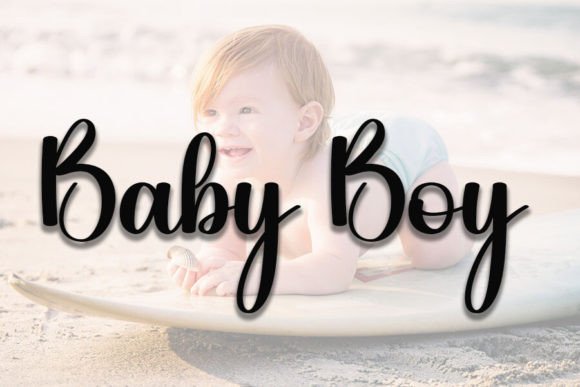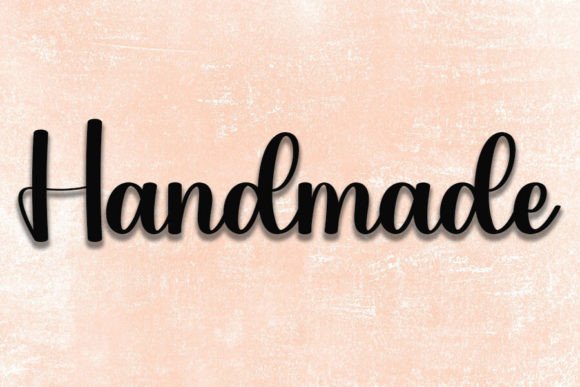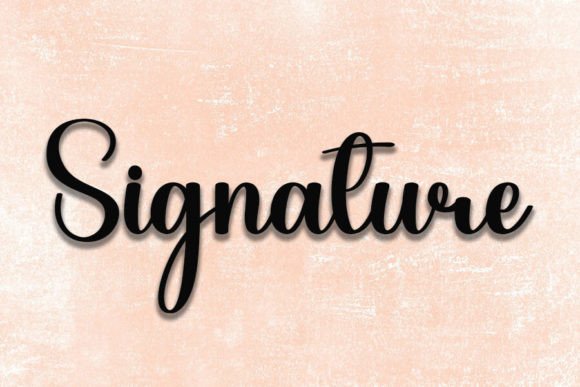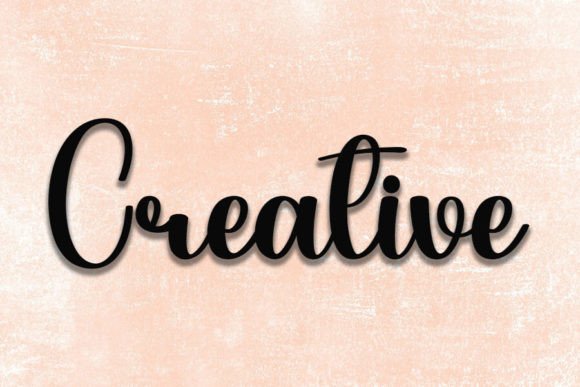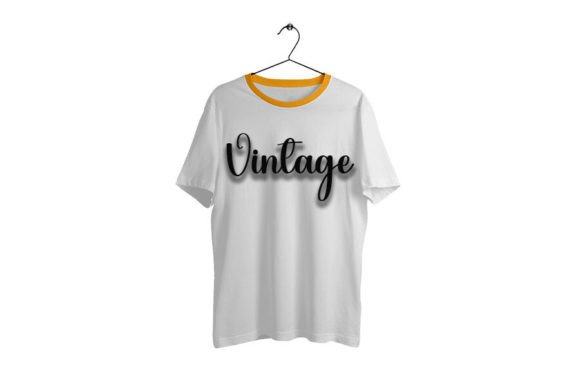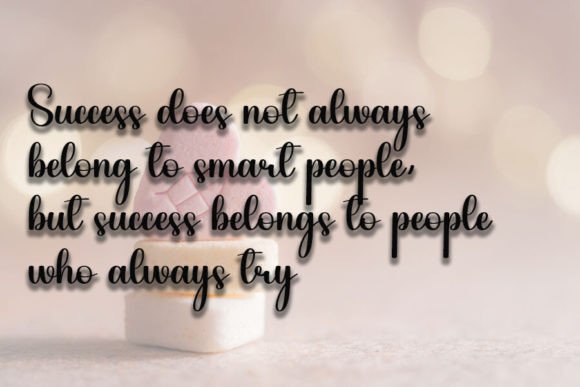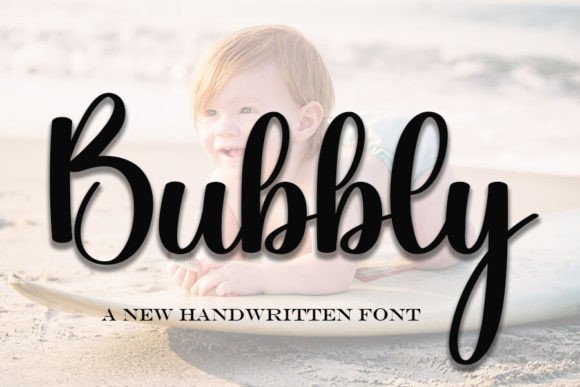
Have you ever sat at your desk, staring blankly at a blank page, waiting for inspiration to strike? It’s a moment we’ve all been in – the creative block that threatens to derail even the most promising project. But then, suddenly, it hits you: a spark of genius, a dash of whimsy, or a pinch of personality that brings your design to life. For many designers, this moment is made possible by the perfect font – one that adds a touch of elegance and charm to their work.
Enter the Bubbly Font, a beautiful handwritten font that captures the essence of timeless style and sophistication. With its unique and distinct character, this font is perfect for designers looking to add a personal touch to their projects. Whether you’re working on a wedding invitation, a children’s book, or a branding campaign, the Bubbly Font is sure to make your design stand out.
Bubbly Font Key Features
- Font Family: Bubbly Font is a unique, hand-drawn font designed to evoke a playful and whimsical feel.
- Character Set: The Bubbly Font includes a comprehensive set of characters, including uppercase and lowercase letters, numerals, punctuation marks, and special characters, making it suitable for a wide range of applications.
- Unique Characteristics: The font’s distinctive, bubbly shape and varied line widths give it a one-of-a-kind appearance, perfect for adding a touch of personality to designs.
Bubbly Font Review
At first glance, the Bubbly Font has a lot of charm. The playful, cursive style is reminiscent of vintage advertisements and adds a touch of whimsy to any design. ✨ The font’s irregular shapes and unpredictable letterforms make it perfect for creating a sense of movement and energy.
Some of the standout features of the Bubbly Font include:
- Highly expressive and emotive, making it great for conveying personality and tone
- Unique, hand-drawn feel that sets it apart from more generic sans-serif fonts
- Works particularly well for headings, titles, and other display text
- May be difficult to read at smaller font sizes due to its intricate design
- Not ideal for body text, as it can be overwhelming and fatiguing to read large blocks of
- May not be suitable for formal or professional designs, as its playful nature can come across as immature
Overall, the Bubbly Font is a great choice for designers looking to add some personality and flair to their work. While it may not be suitable for every project, it’s a valuable tool to have in your arsenal. ⚠️ Just be mindful of its limitations and use it sparingly to avoid overwhelming your audience.